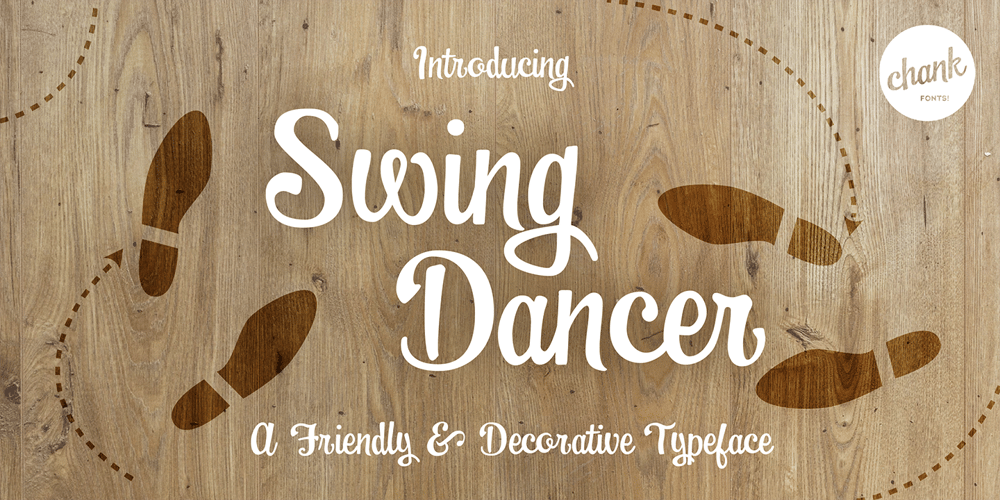
Swingdancer Font Family was designed by Chank Diesel and published by Chank. Swingdancer contains 1 styles and family package options. With a swooshy hand-painted flow, the strokes of this vintage brush script will make your designs sing and dance. While each character is charming on its own merit, put ’em together and this font dances with the swing rhythm and bursting energy of Benny Goodman’s big band. And don’t miss the dandy special characters for letter combinations tt, th, or, os, and an extra fancy alternate capital M. Without a doubt, Swingdancer will satisfy the script jones of any retro font fan. Now available in new OpenType format, too!